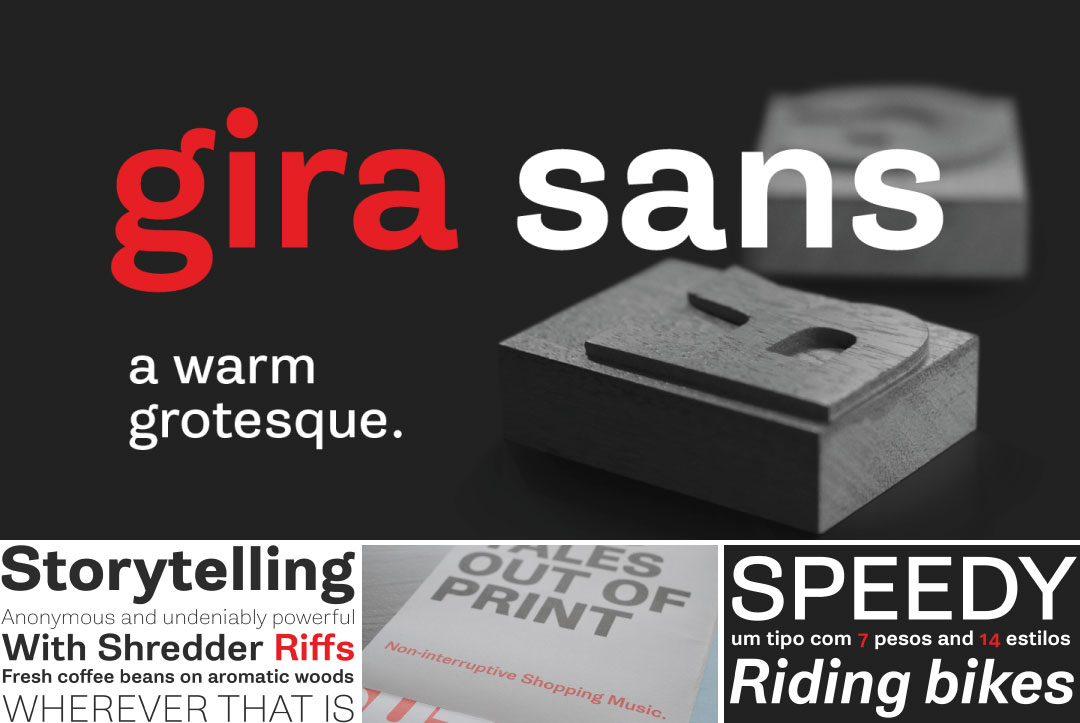
Garden Brush
Garden Brush by Blue Vinyl Fonts
While Pen fonts are all the rage right now, there’s something to be said for a high-quality pointed brush style without all of the variation that a pen font simulates. Including some really nice swashes and end caps, Garden Brush by Blue Vinyl is a versatile font that works in a variety of situations, especially when you care more about legibility.
Gira Sans
Gira Sans by Rui Abreu
Another fantastic offering from Rui Abreu, Gira Sans is a modern variant of a grotesque Sans. Its large x-height makes it especially applicable in text for smaller screens like phones. You probably already have a great sans or two already, but this would make a fine addition to your toolbox.
Quimbly
Quimbly by Magpie Paper Works
Sometimes a font gets lost in the shuffle, and this past month at Fontspring, Quimbly did. It’s got charm though, and is part of a new hand lettering trend that we wholly endorse. I especially like Quimbly at small sizes, those looking for a font for wedding invitations or programs with lots of text, look no further!